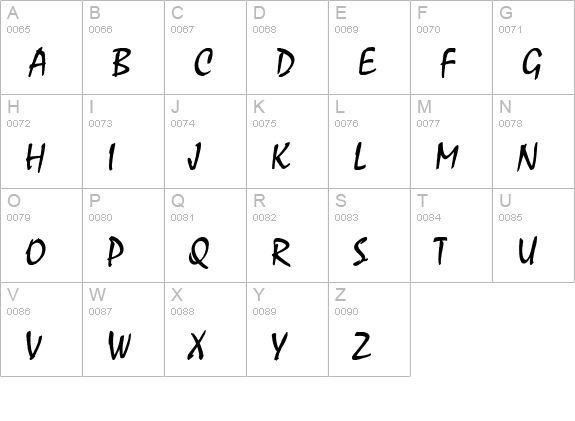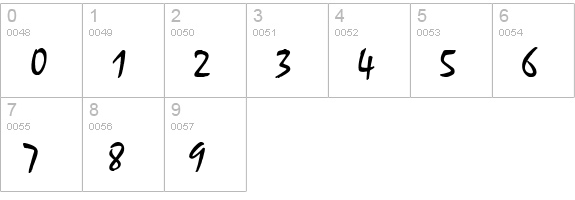
Malaga-Regular is the standard, neutral variant in the Malaga typeface family \xE2\x80\x94 well suited to general body text, paragraphs, and standard typographic work.
Malaga-Regular is a versatile and elegant font that exudes sophistication and modernity. Its clean lines and timeless design make it suitable for a wide range of creative projects, from branding to print materials and beyond. The balanced proportions and subtle details of Malaga-Regular give it a unique charm that stands out without overwhelming the overall design. Best of all, Malaga-Regular is available for free download at FontsMarket.com. This means that you can easily access this high-quality font and incorporate it into your projects without any cost. Whether you're a seasoned designer looking to refresh your font collection or a newcomer eager to explore new options, Malaga-Regular is a fantastic choice that won't break the bank. Download it today and elevate your designs with this beautiful typeface.